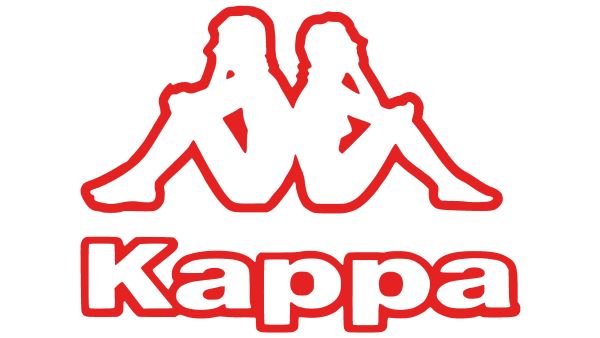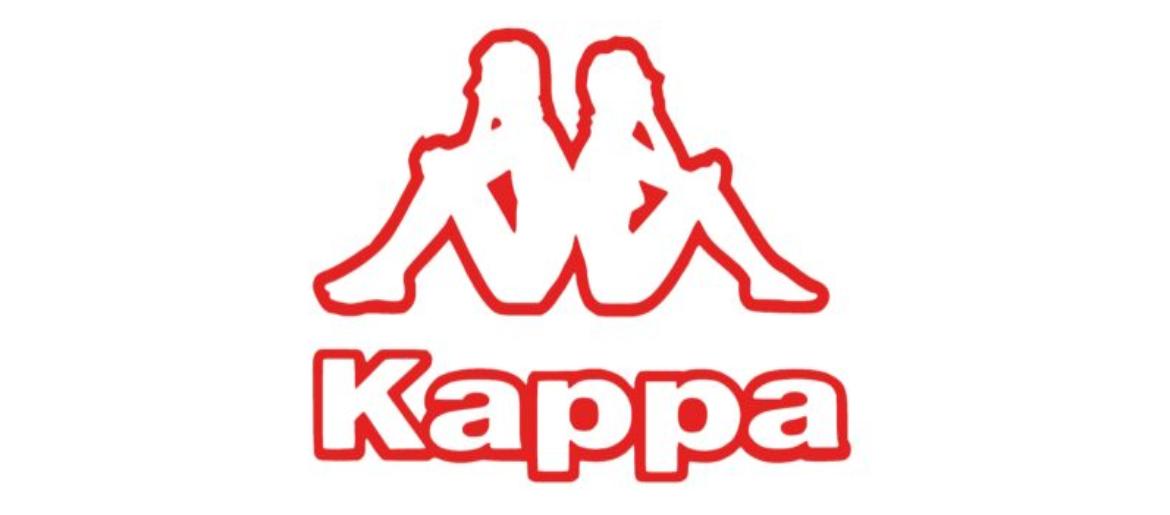
Kappa Font
What Font is Kappa?
Kappa Font features a bold and minimalistic design that reflects the brand’s sporty and dynamic character. The typeface closely resembles Kyrilla Sans Serif Black, a strong and contemporary sans-serif font that mirrors Kappa’s clean, confident logo style. This font is free to download and is available for personal use, making it a great choice for projects that need a modern and athletic look similar to the original Kappa logo.
About Kappa
Kappa is an Italian sportswear brand founded in 1916 in Turin, Italy. Known for its distinctive “Omini” logo depicting a man and woman sitting back-to-back, Kappa has become a symbol of both athletic performance and streetwear fashion. The brand produces sportswear, shoes, and accessories and has been a major sponsor of football clubs and athletes worldwide, blending heritage style with modern sports culture.